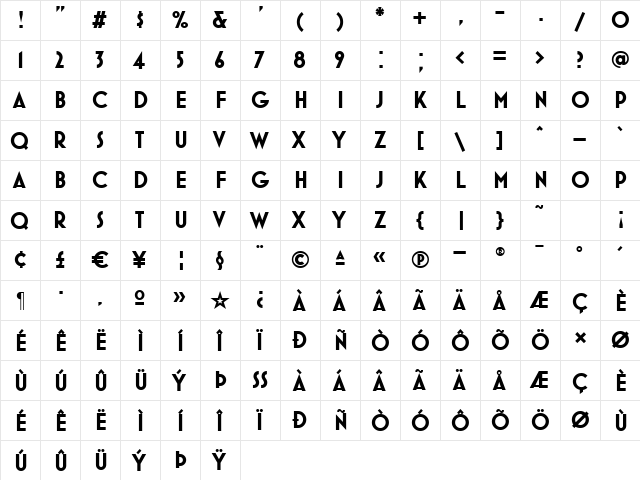
MostraOneBold Regular
Design Context for MostraOneBold Typeface
MostraOneBold is a composed and adaptable typeface that performs quietly and consistently across a wide range of design contexts. Its bold stroke weight gives it real presence on the page.